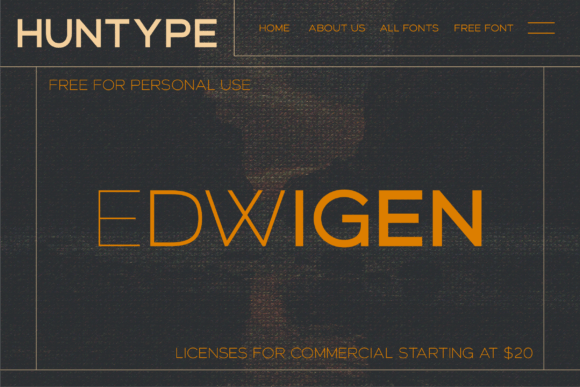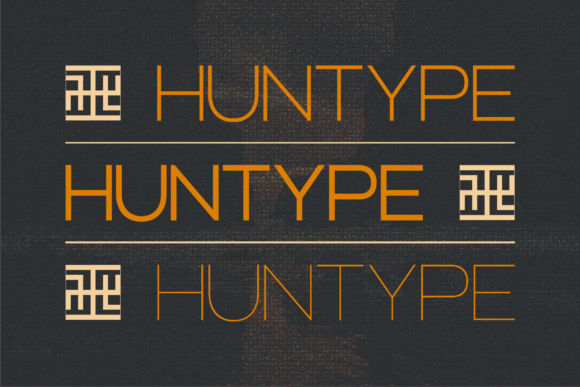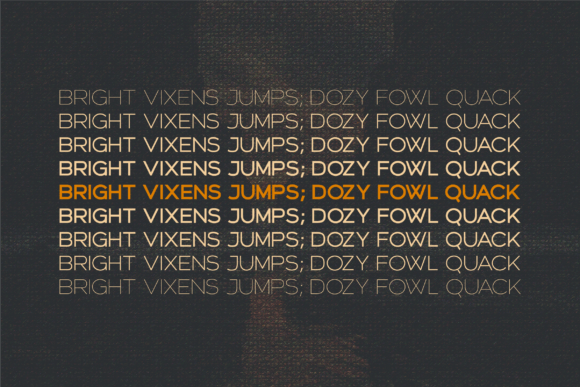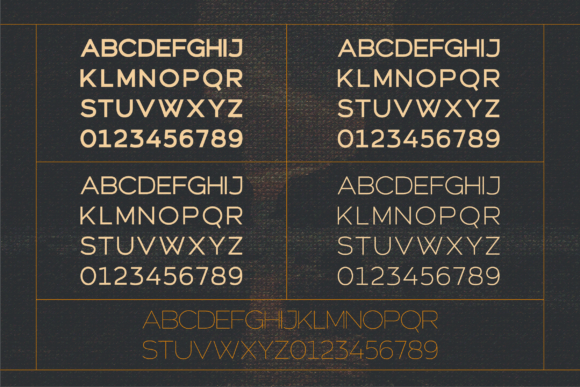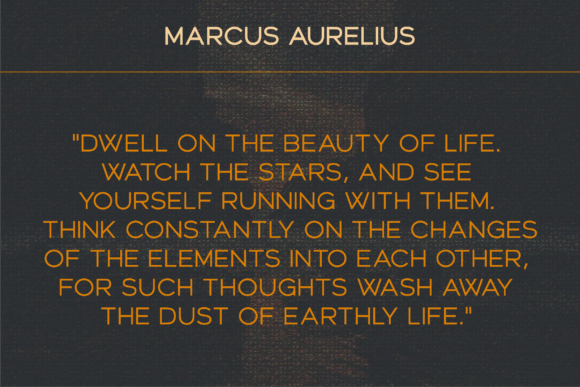
Introducing Edwigen: A Modern and Versatile Font Family
In the world of typography, a font can make all the difference in the way a message is conveyed. Edwigen, a modern and versatile font family, has been designed to cater to the diverse needs of designers and crafters. This font family is a perfect blend of clean geometric forms and subtle sophistication, making it an ideal choice for a wide range of applications.
A Harmonious Balance of Sharp Lines and Gentle Curves
Edwigen’s adaptable style is evident in its precise letterforms and contemporary aesthetic. The font family boasts a harmonious balance of sharp lines and gentle curves, making it both visually appealing and highly legible. Each font in the Edwigen family stands alone, impactful and refined in its own right, allowing designers to choose the perfect weight to suit their design needs.
The Edwigen Font Family: A Range of Options
The Edwigen font family comprises five distinct fonts: Thin, Light, Regular, Bold, and Black. This range of options provides designers with the flexibility to choose the perfect weight for their design project.
Edwigen Black: Bold and Impactful
Edwigen Black is the boldest and most impactful font in the family. With its commanding presence, it’s perfect for headlines that require attention-grabbing typography. This font is ideal for designers who want to make a statement and leave a lasting impression.
Edwigen Bold: Strong and Persuasive
Edwigen Bold is a strong and persuasive font, suitable for key messages that require emphasis. Its bold yet refined aesthetic makes it perfect for designers who want to convey confidence and authority.
Edwigen Regular: Balanced and Versatile
Edwigen Regular is a balanced and versatile mid-weight font, suitable for a wide range of applications. Its neutral yet refined aesthetic makes it perfect for designers who want to convey a sense of professionalism and sophistication.
Edwigen Light: Subtle and Elegant
Edwigen Light is a subtle and elegant font, ideal for refined designs that require a touch of sophistication. This font is perfect for designers who want to convey a sense of luxury and refinement.
Edwigen Thin: Delicate and Sophisticated
Edwigen Thin is a delicate and sophisticated font, perfect for designers who want to add a minimalist touch to their designs. This font is ideal for projects that require a subtle yet refined aesthetic.
Why Choose Edwigen?
So, why choose Edwigen over other font families? Here are just a few reasons:
• Versatility: Edwigen’s range of weights makes it suitable for a wide range of applications, from headlines to body copy.
• Legibility: Edwigen’s precise letterforms and contemporary aesthetic make it highly legible, even at small font sizes.
• Sophistication: Edwigen’s subtle sophistication makes it perfect for designers who want to convey a sense of luxury and refinement.
In conclusion, Edwigen is a modern and versatile font family that offers a range of options for designers and crafters. Its harmonious balance of sharp lines and gentle curves, combined with its precise letterforms and contemporary aesthetic, make it an ideal choice for a wide range of applications. Whether you’re looking for a bold and impactful font or a subtle and elegant one, Edwigen has something to offer.
Getting Started with Edwigen
Ready to get started with Edwigen? Here are a few tips:
• Experiment with different weights: Try out different weights to find the perfect one for your design project.
• Pair Edwigen with other fonts: Edwigen pairs well with other fonts, so don’t be afraid to experiment with different combinations.
• Use Edwigen for a range of applications: Edwigen is suitable for a wide range of applications, from print to digital.
With Edwigen, the possibilities are endless. So why not give it a try and see what you can create?